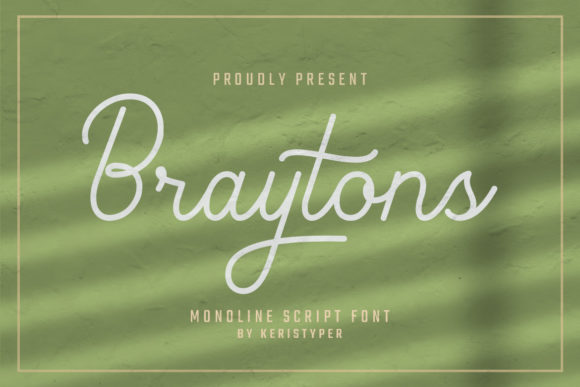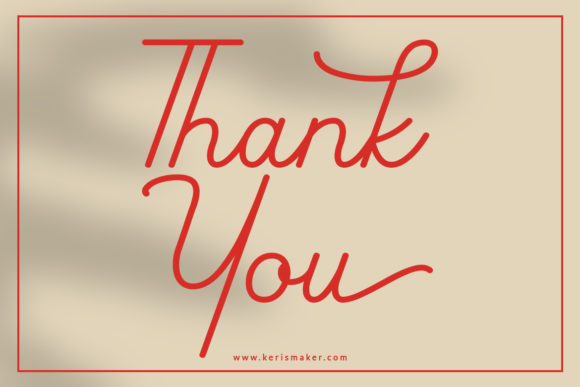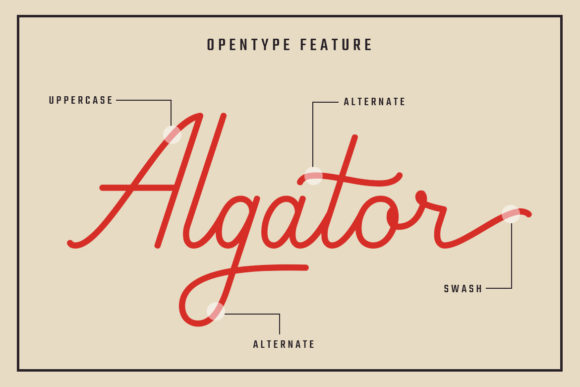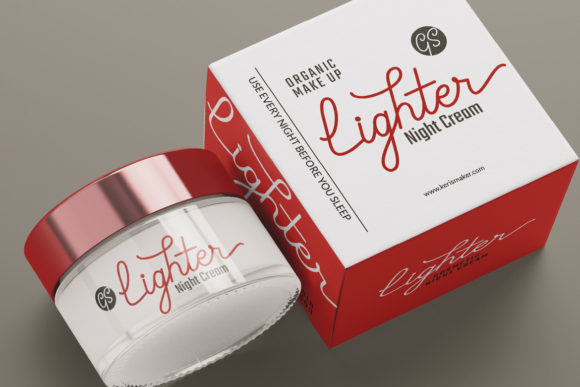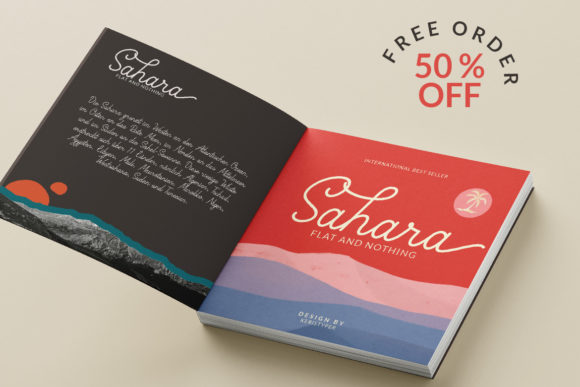
About Braytons Font
Braytons is a flowing script font, described by a vintage touch, perfect for your favorite projects. Fall in love with its incredibly distinct and timeless style and use it to create spectacular designs!